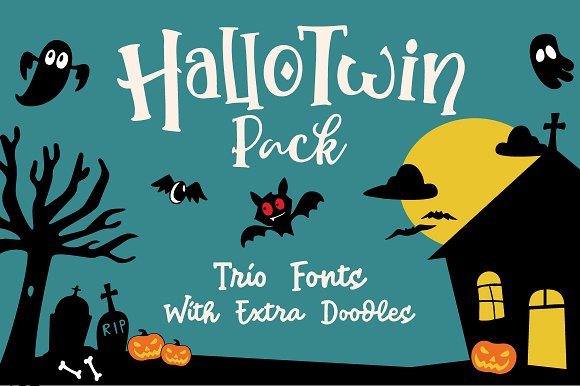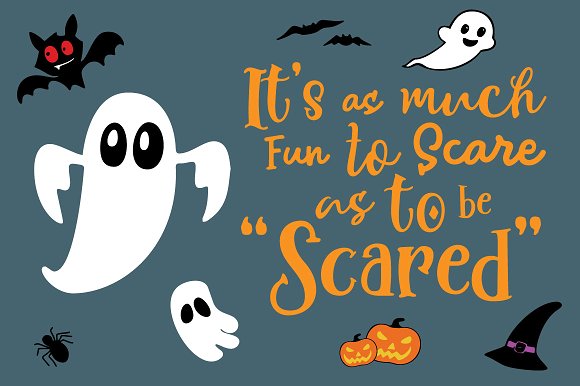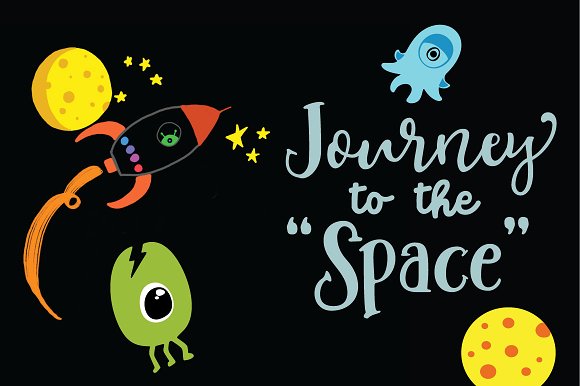
HalloTwin Font Pack
A new from Awakenning Studios HalloTwin is an font with childiest character. Characteristic of this fonts will act to create an ambience of fun.
No matter how is your design concept to looking fun. it can be serious, scary, mystical, chilling, dark or light. With HalloTwin, your design will more quieter, relax, enjoy, childiest etc.
Comes with vector to complete your project, to make you easier for adding the “fun object”, of course you will have more time for coffee. : )
HalloTwin come with 3 font and vector there # HalloTwin Sherif # HallloTwin Monoline # HalloTwin Script There are come with OTF format, so you can change the font what you want with open type feature, the some ligature and alternates from this font.